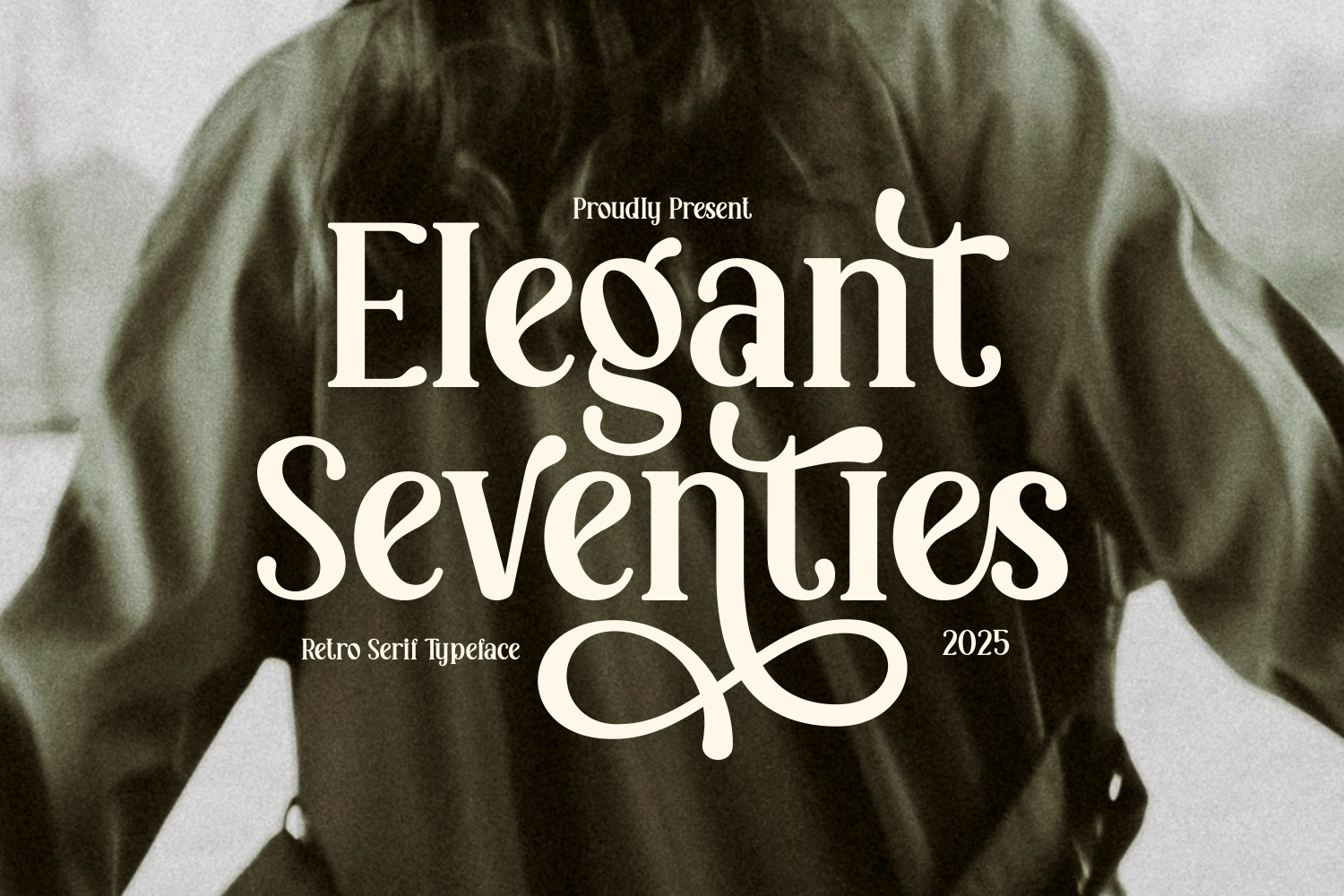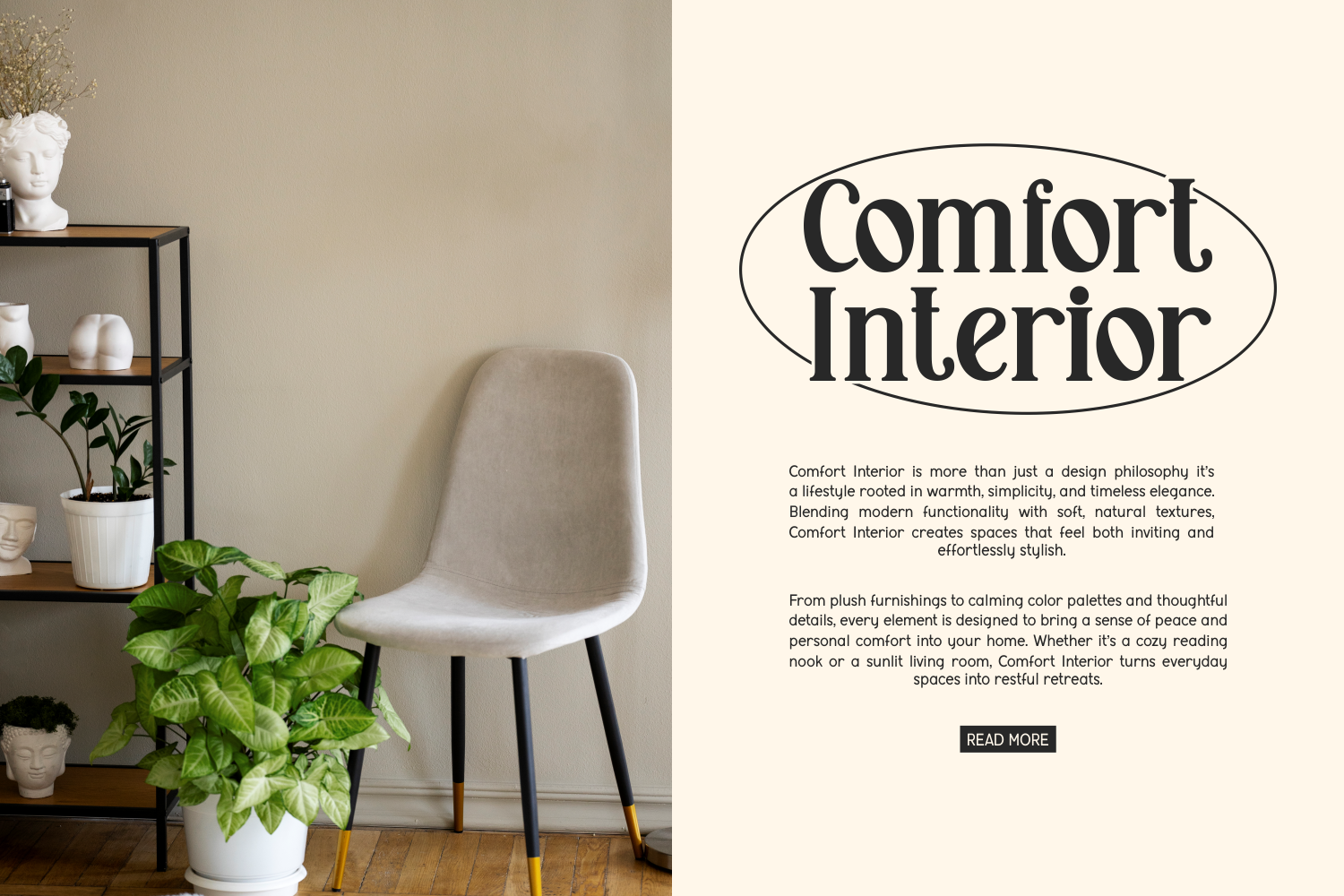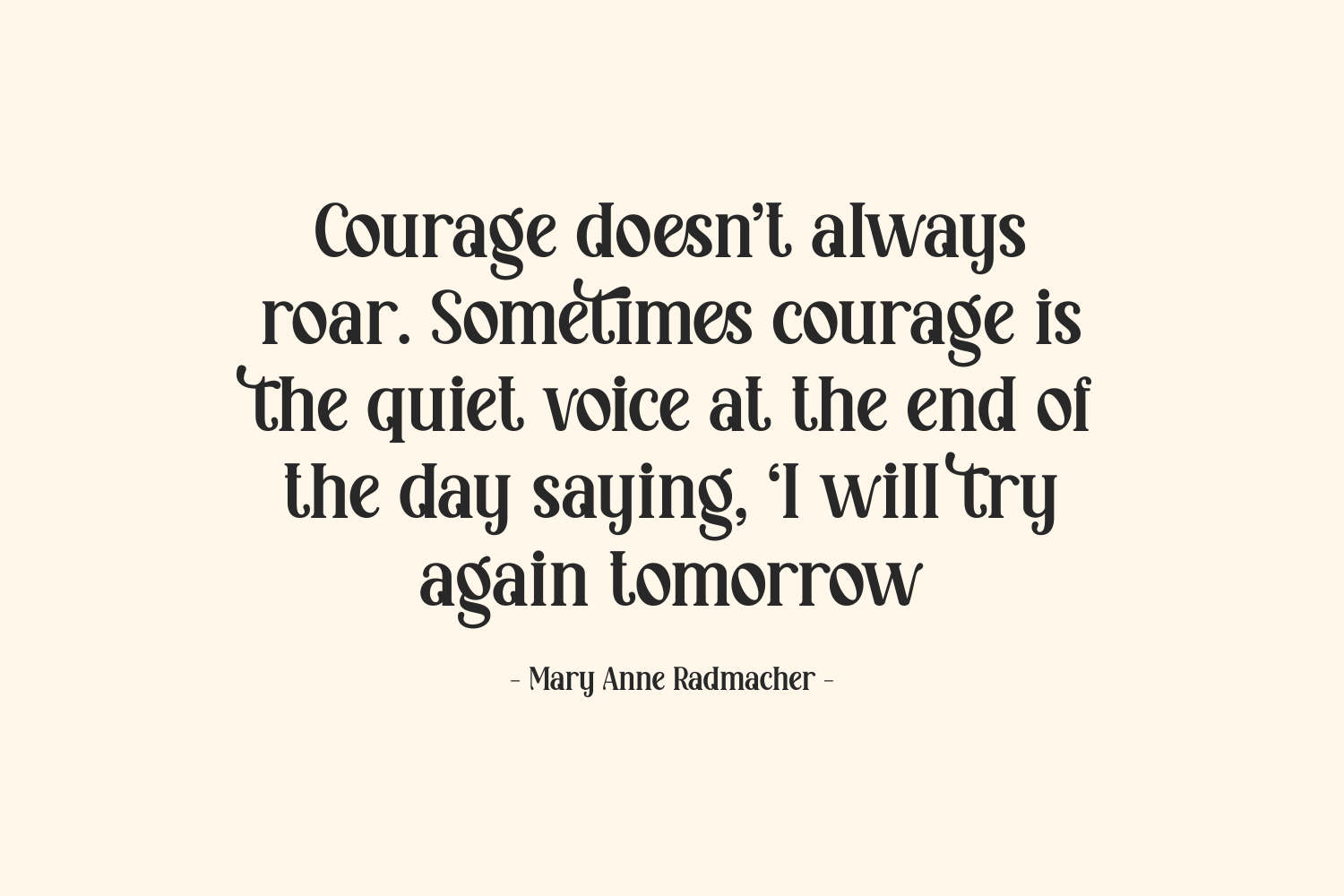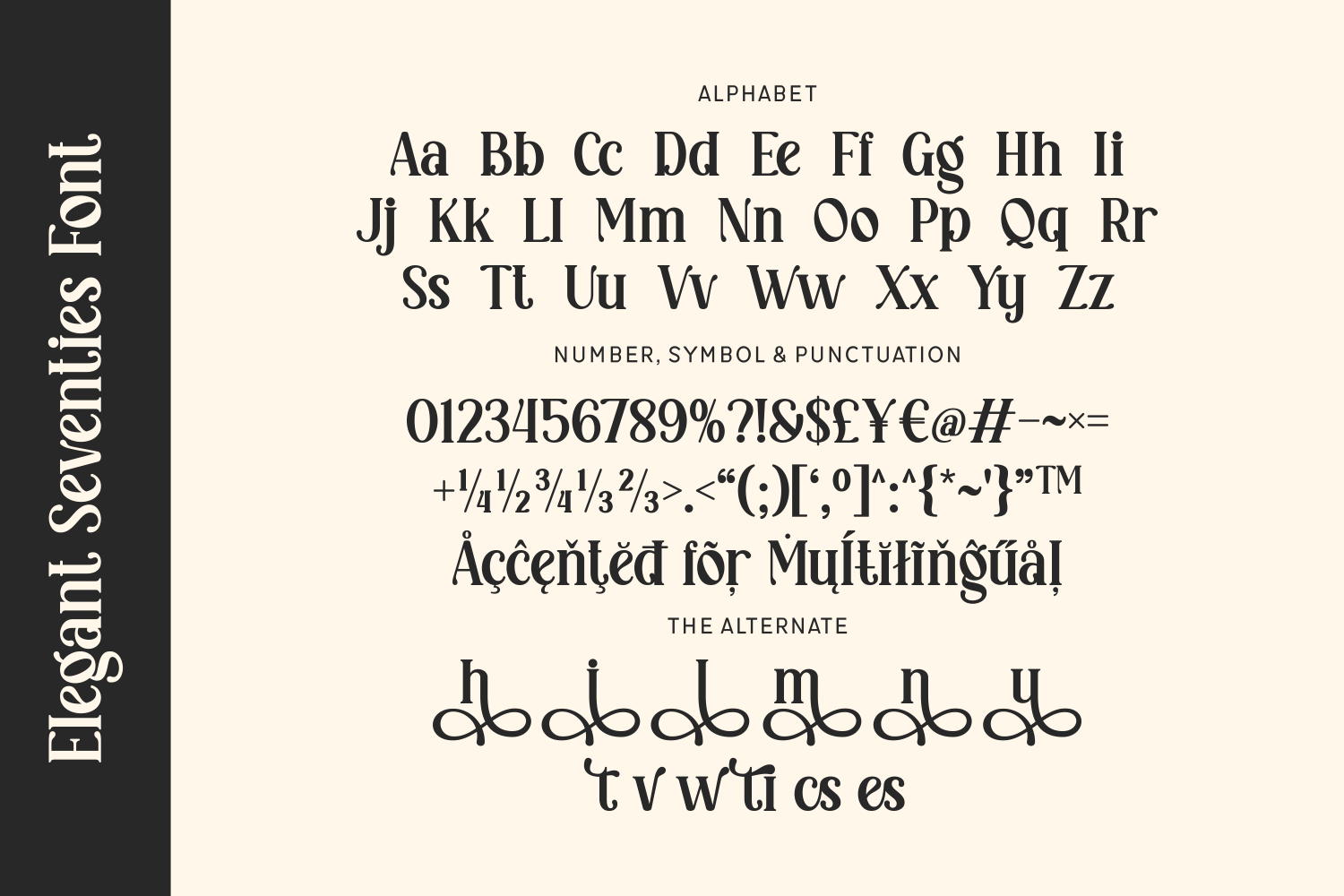
Elegant Seventies
Elegant Seventies is a groovy retro serif font that brings vintage charm into the modern era. With bold curves, playful ligatures, and stylish swashes, this typeface radiates nostalgic flair while maintaining readability and balance. It includes multilingual support and decorative alternates for added flair and customization.